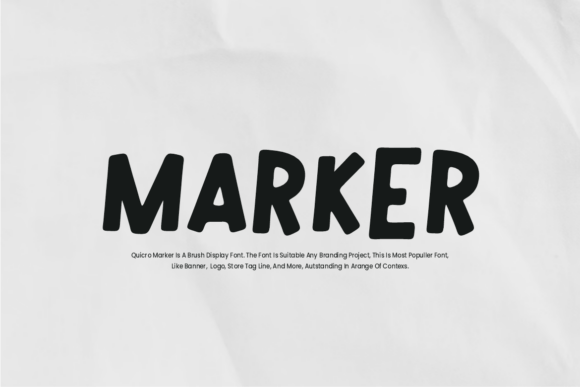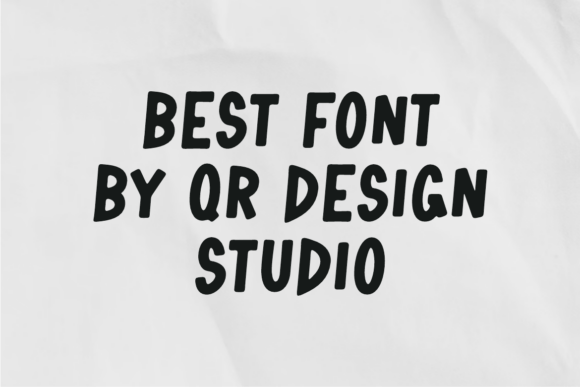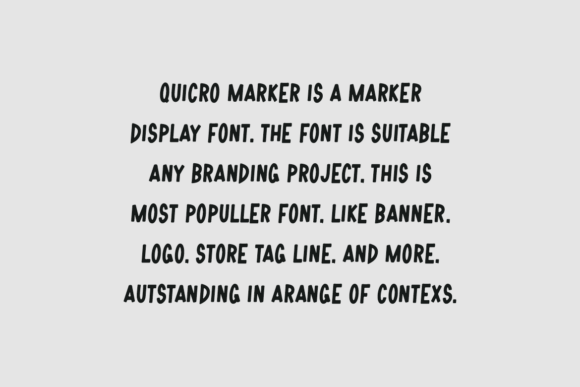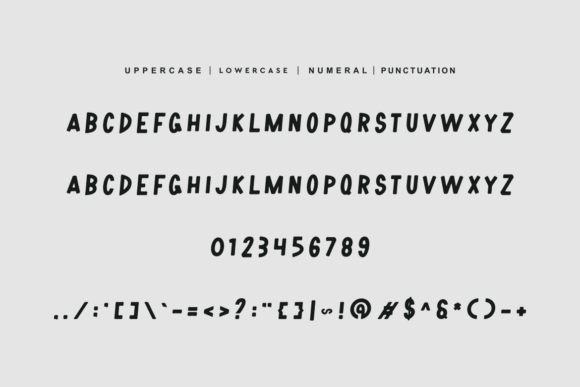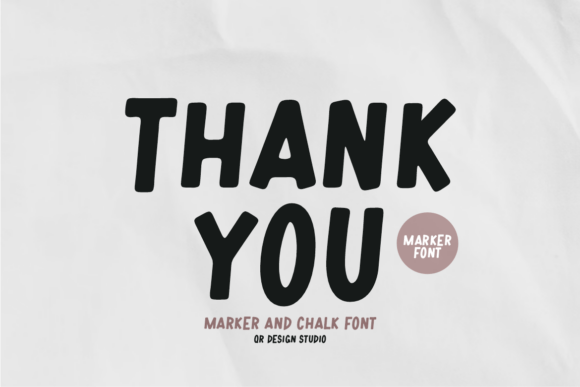
Introduction to Quicro Marker Font
Quicro Marker is a bold, hand-drawn font inspired by marker strokes and chalkboard writing.
Its slightly uneven edges and casual feel give it a fun, energetic vibe thatโs perfect for educational materials, signage, product packaging, and playful branding Whether youโre creating school posters or DIY-style graphics, Quicro Marker adds a lively and approachable charm.
Key Features of Quicro Marker Font
Why Choose Quicro Marker Font?